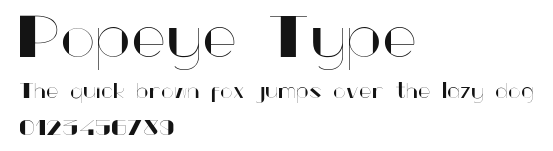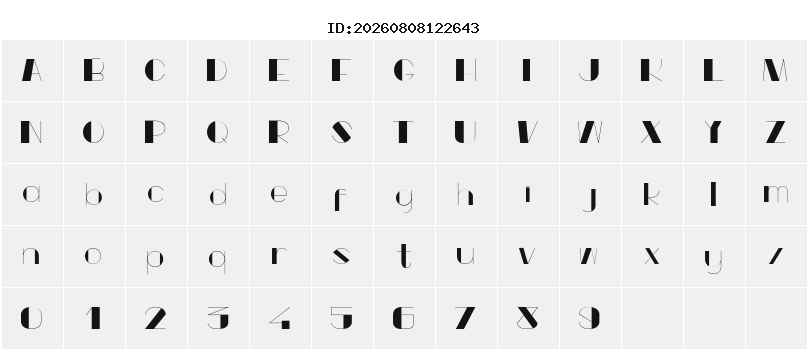
Popeye Type Preview
• Font Name: Popeye Type
• Manufacturer: Héctor Gaitán Garrido
About Popeye Type.ttf
Popeye Type.ttf is a modern, elegant sans-serif font designed for ultimate readability and visual harmony. Perfect for branding, headlines, web design, and print materials.